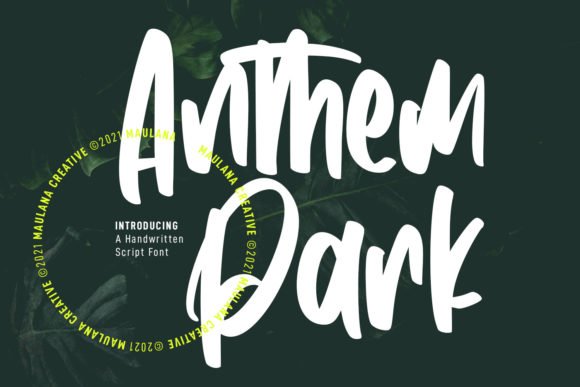
Adding a Personal Touch with the Anthem Park Font
Have you ever been stuck on a design project, searching for the perfect font to convey your message? It’s a moment we’ve all been in, staring blankly at our screens, willing the perfect font to magically appear. For designers, finding the right font can make all the difference between a project that shines and one that falls flat.
Enter the Anthem Park Font – a quirky and adaptable handwritten font that’s perfect for adding a personal touch to your designs. Whether it’s a wedding invitation, thank you card, or business logo, this font is sure to make your message stand out. With its versatility and charm, the Anthem Park Font is a valuable asset for any designer looking to add a handwritten touch to their work.
Anthem Park Font Key Features
- Unique Characteristics: The font features a distinctive blend of modern and vintage elements, with bold lines, geometric shapes, and elegant flourishes, making it ideal for creating eye-catching designs.
Anthem Park Font Review
Overall, I’d say Anthem Park is a solid choice for your next design project, but it’s not without its quirks.
- The font’s bold, modern aesthetic is perfect for headlines and titles. It’s eye-catching and attention-grabbing.
- The font family is quite comprehensive, with a range of weights and styles to suit different design needs.
- Anthem Park works well in digital and print applications, making it a versatile choice for designers.
- The font can feel a bit over-the-top in smaller sizes or when used extensively throughout a design. It’s a statement font, and it demands attention.
- The light weights can appear a bit too light, making text difficult to read in some cases.
- The font’s uniqueness can also be a drawback, as it may not be suitable for designs where a more neutral, classic look is desired.
Anthem Park is a great choice for designers who want to add some personality to their work. While it has its limitations, it’s a solid option for when you need a bold, modern font that makes a statement.
Tips for Getting the Most Out of Anthem Park Font
Use Anthem Park Font for headings and titles to create a bold and eye-catching design.
Pair Anthem Park Font with a clean and simple sans-serif font for body text.
Experiment with different font sizes and colors to create visual hierarchy and emphasis.
Anthem Park Font is ideal for:
Marketing materials, such as brochures and flyers.
Brand identities, such as logos and business cards.
Presentations and reports, such as PowerPoint and Word documents.